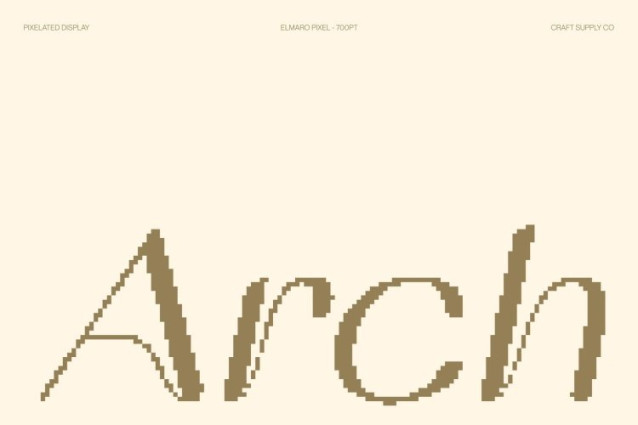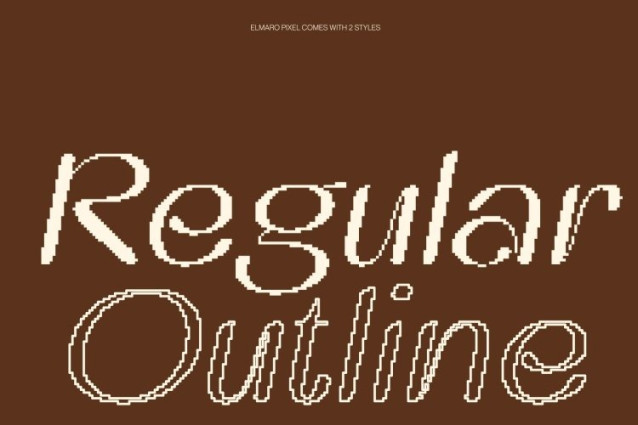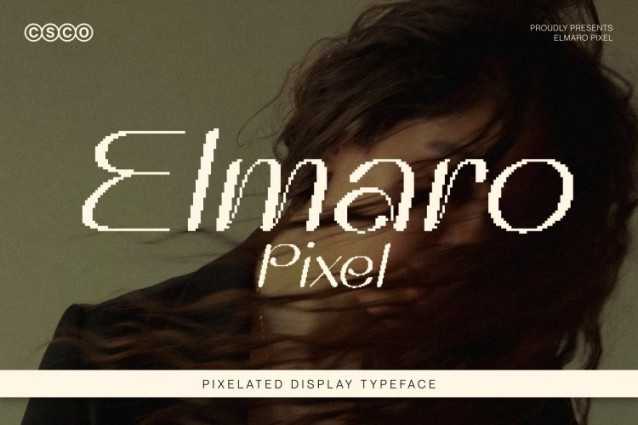
Elmaro Pixel Font
Elmaro Pixel Font This is a cutting-edge display font that fuses futuristic sophistication with retro pixel charm. Its sharp, geometric lines and rigid structure are inspired by the iconic aesthetics of science fiction aliens, delivering a design that feels both modern and otherworldly.
Innovative Alien Inspiration
Drawing from the mysterious visuals of alien technology and spacecraft, this font offers a unique typographic experience. Its unconventional shapes and bold angles make it a distinctive choice for designers seeking a font that stands out and sparks imagination.
Perfect for Modern and Digital Projects
Whether used in posters, digital interfaces, branding, or promotional materials, this font adds a futuristic flair while maintaining pixelated clarity. Its rigid, bitmap-style construction ensures legibility and visual impact across both screen and print applications.
Captivating and Distinctive
This font captivates with its bold, otherworldly forms. It’s ideal for projects that require attention, innovation, and a touch of the extraordinary. Combining futuristic inspiration with retro 8-bit charm, this font is a must-have for designers looking to bring alien elegance and digital nostalgia into their creative work.